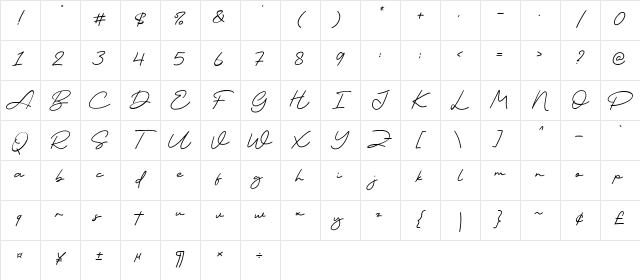
Patung Regular Free Font
Patung Regular
Foundry: Khurasan
Designer: Khurasan
Design Context for Patung
Patung is a composed and adaptable typeface that performs quietly and consistently across a wide range of design contexts.